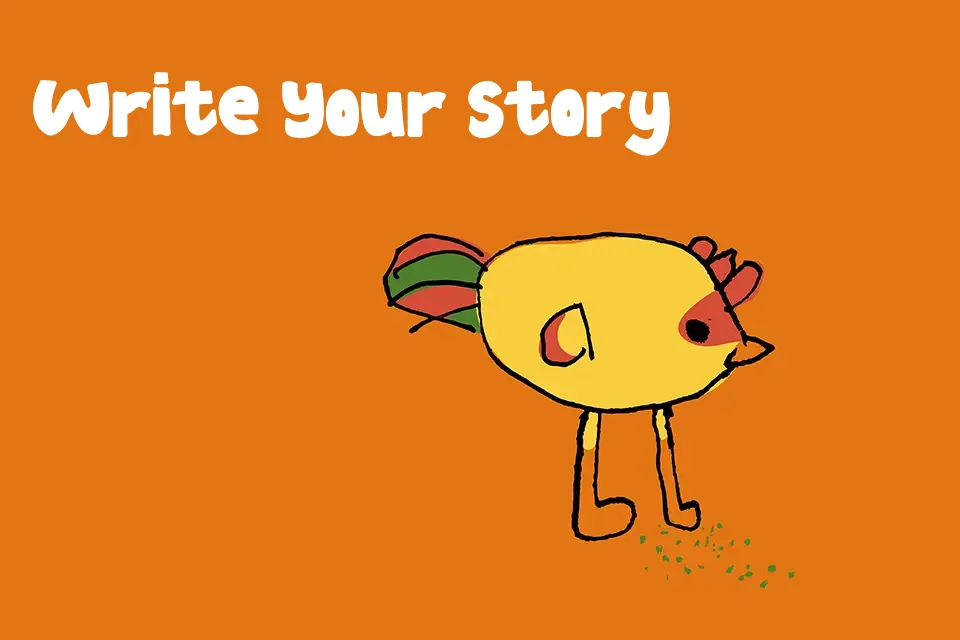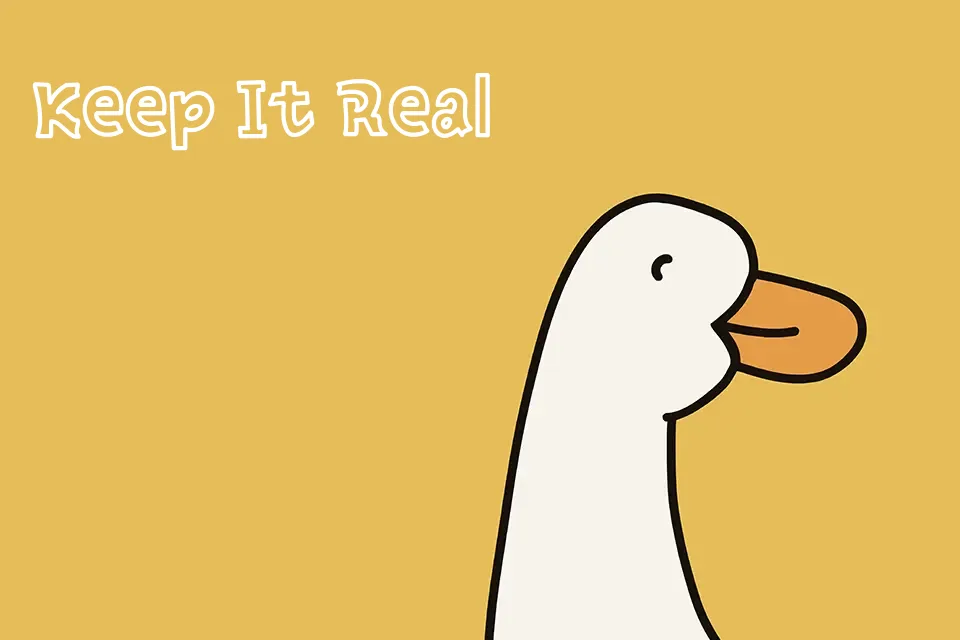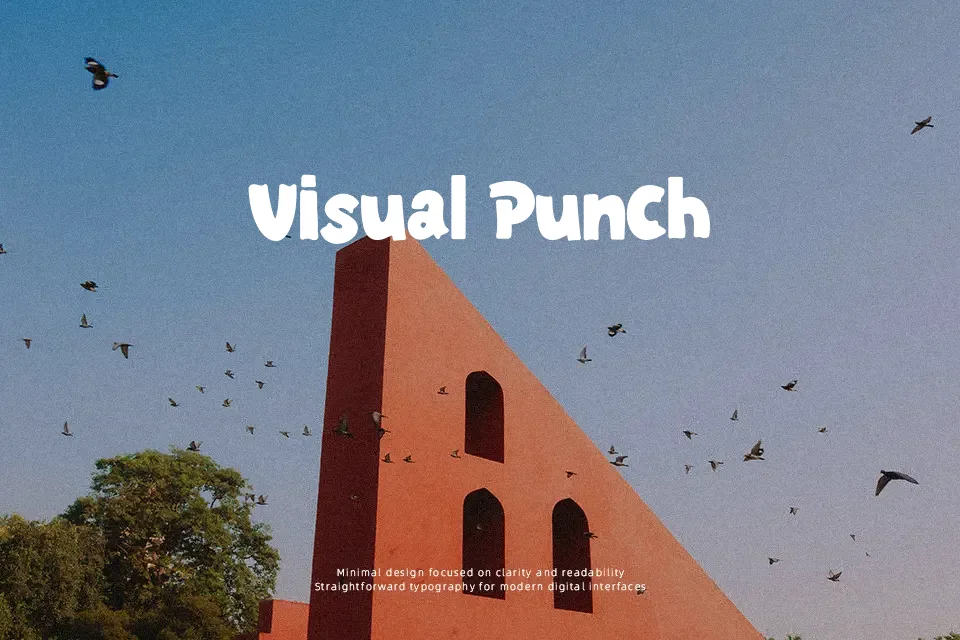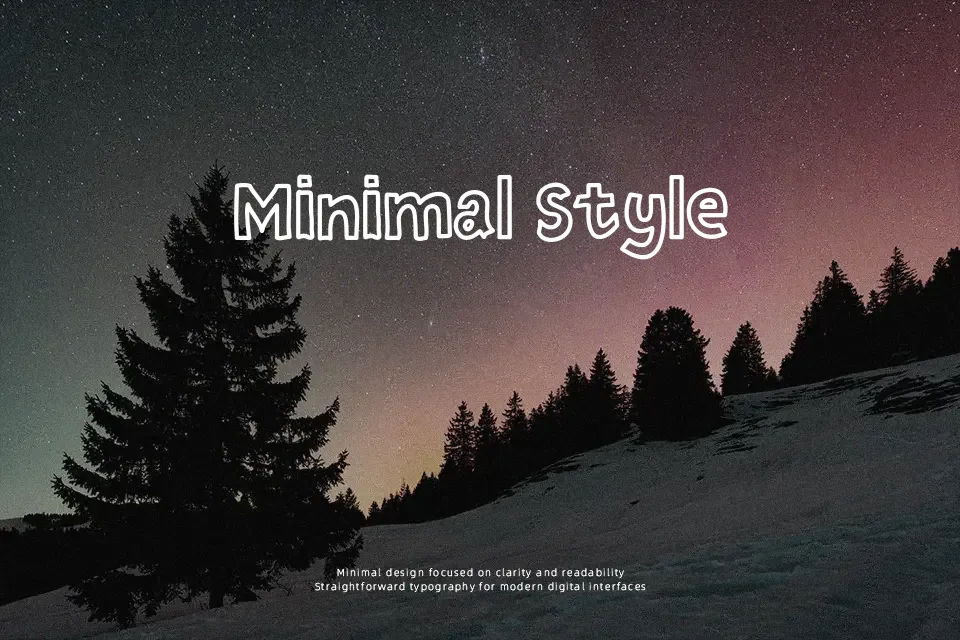
Urban Sketch Font
Urban Sketch Font showcases energetic, cartoon-inspired letterforms defined by spontaneous hand-drawn contours and intentionally varied stroke widths. The typeface features relaxed character spacing and bouncy, casual proportions that create a spirited visual cadence across headlines, product packaging, and creative branding assets. Numerals and standard uppercase forms preserve clear distinction, ensuring short phrases remain legible in prominent positions. However, the irregular outlines and expressive weight fluctuations make the design less suitable for continuous body text, where dense paragraph settings demand uniform rhythm and neutral texture.
Best For: animated poster titles, playful apparel graphics, children book covers, creative packaging labels
Not Ideal For: continuous body text, mobile interface labels, corporate business reports, legal documentation
Perfect for headline, kids, and logo, with a artistic and cartoon style.